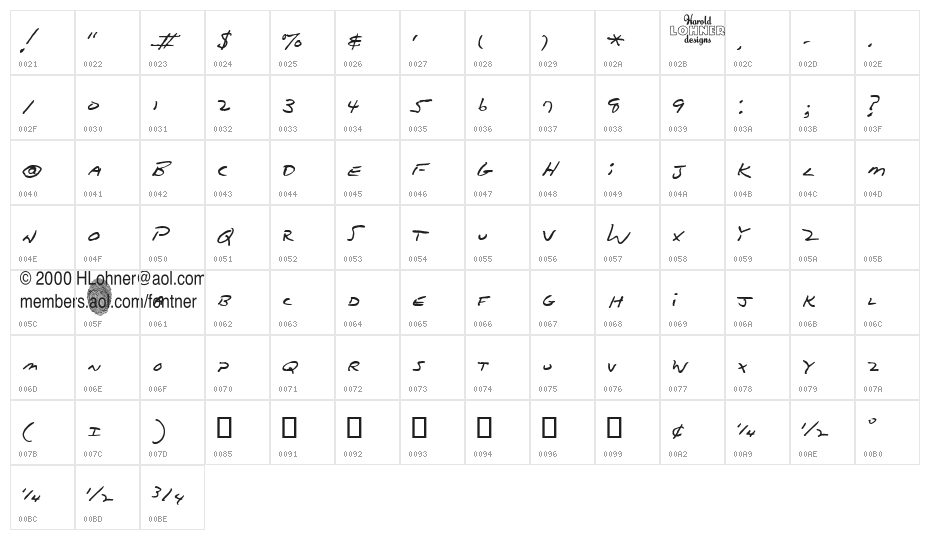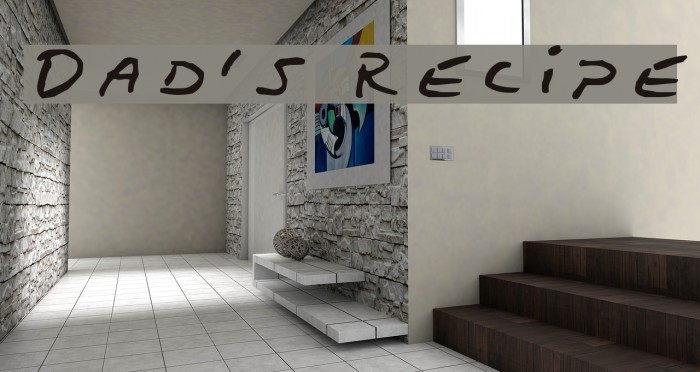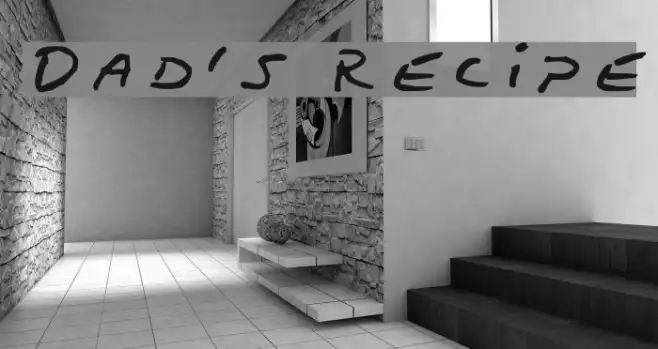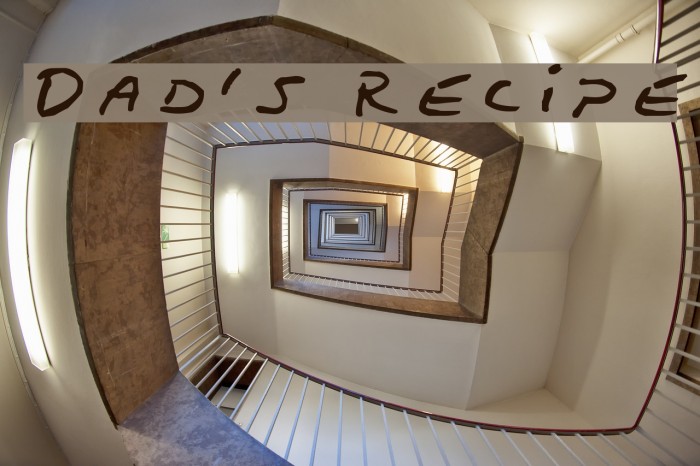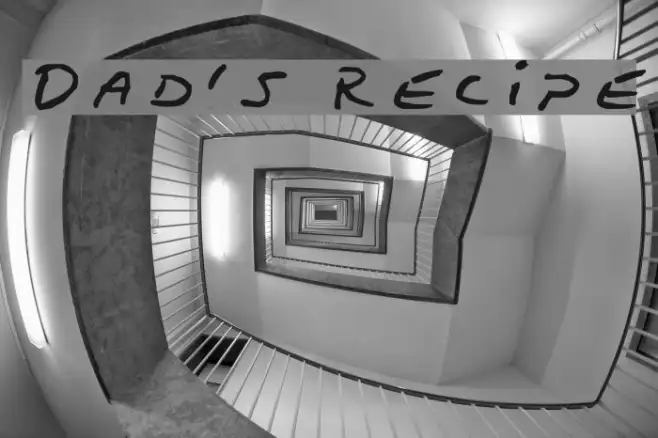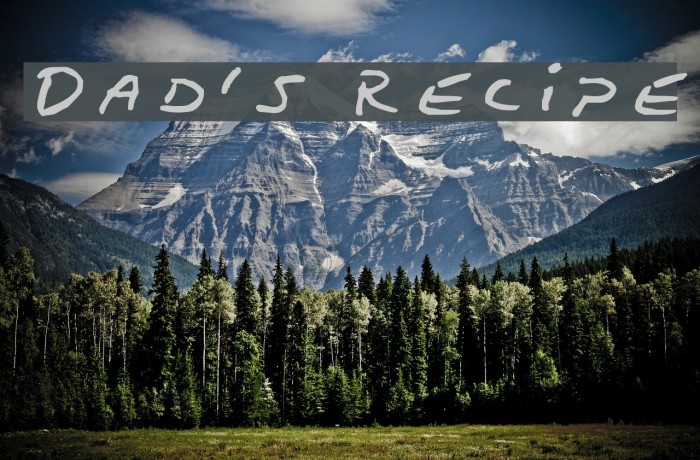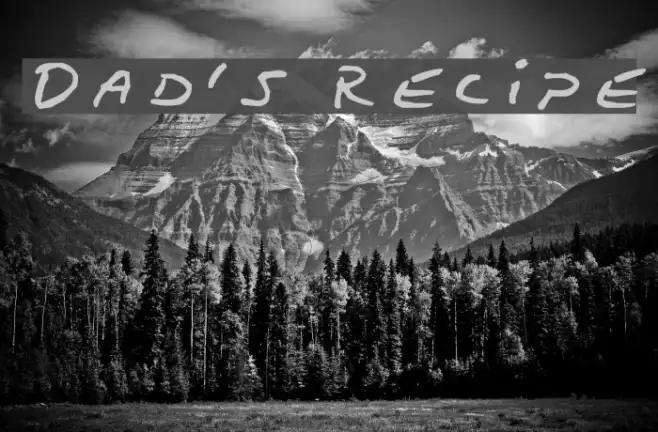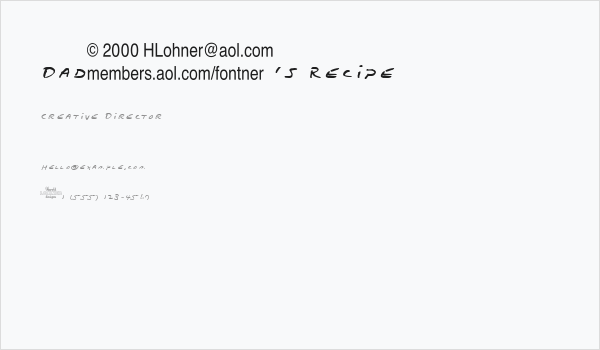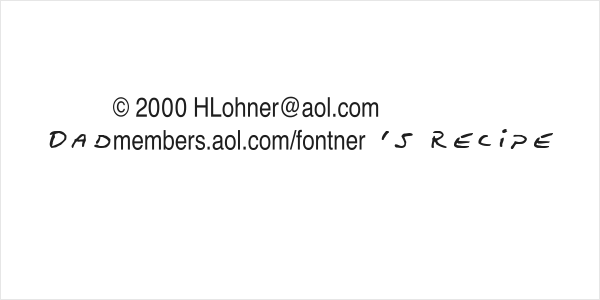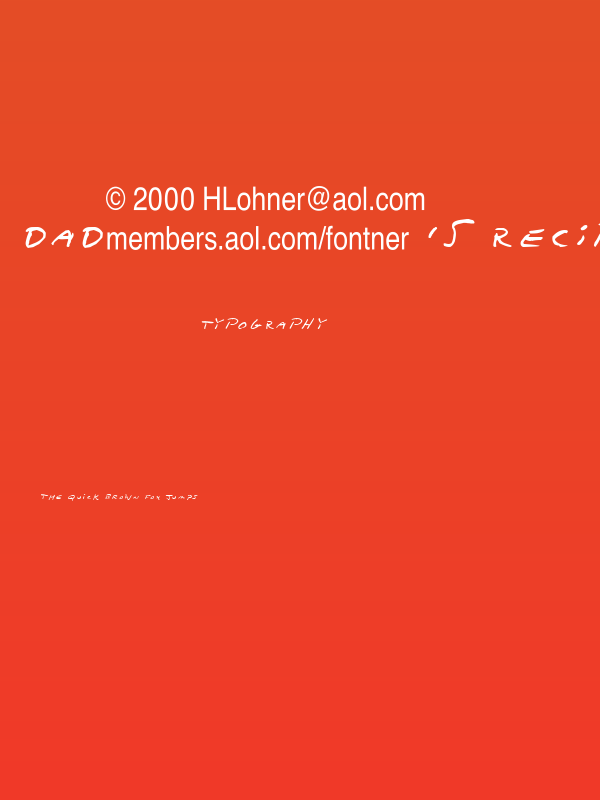
Dad's Recipe Font
Dad's Recipe Description
This font exudes a casual and personal touch, reminiscent of handwritten notes or personal letters. The characters are fluid and slightly slanted, giving an informal and approachable feel. The strokes are uneven, adding to the authenticity of a handwritten style. The uppercase and lowercase letters maintain a consistent style, with a playful and dynamic appearance. Numbers and special characters are crafted with the same casual flair, ensuring a cohesive look across all text. This font is perfect for projects that require a personal or intimate touch, such as invitations, greeting cards, or personal branding.
| Overall Style | Casual, Personal |
| Use Case | Headlines, Personal notes, Informal text |
| Proposed Projects | Invitations, greeting cards, personal branding, informal communications. |